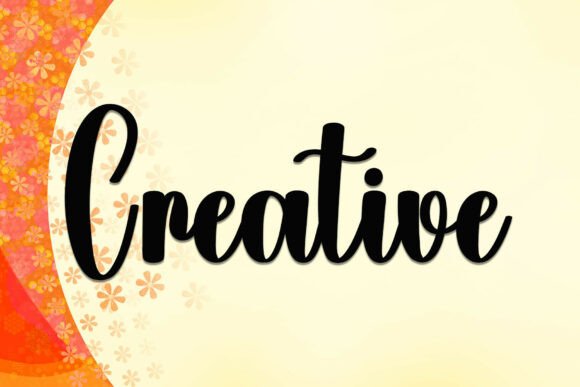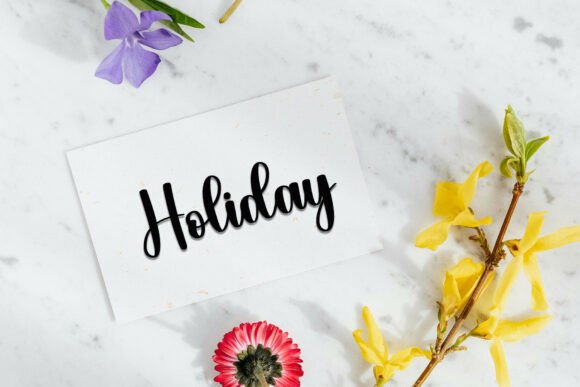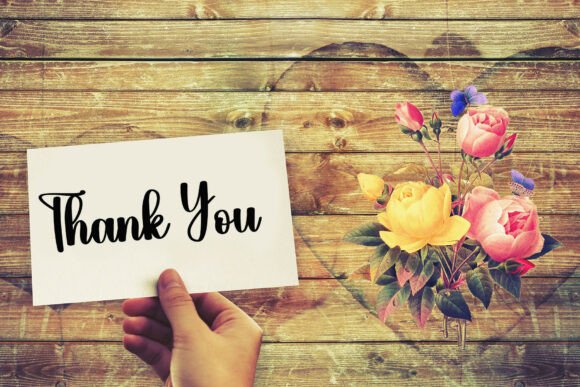
Introducing Christmas Saturday Font: The Perfect Addition to Your Festive Designs
As the holiday season approaches, designers and crafters are on the lookout for the perfect font to add a touch of elegance and whimsy to their Christmas projects. Look no further than Christmas Saturday Font, a modern calligraphy font that embodies the spirit of the season with its elegant, handwritten feel.
A Font that Exudes Festive Charm
Christmas Saturday Font is designed to bring a sense of warmth and coziness to your holiday designs. Its smooth curves and flowing strokes evoke a sense of nostalgia and festivity, making it perfect for a wide range of applications, from holiday cards and invitations to product packaging and social media posts.
Key Features of Christmas Saturday Font
- Elegant, handwritten feel: Christmas Saturday Font boasts a beautiful, cursive script that adds a personal touch to any design.
- Smooth curves and flowing strokes: The font’s fluid lines and curves create a sense of movement and elegance, perfect for capturing the magic of the holiday season.
- Balanced charm and style: Christmas Saturday Font strikes the perfect balance between casual charm and stylish script, making it ideal for creating warm and welcoming visuals.
Christmas Saturday Font is incredibly versatile, making it suitable for a wide range of design projects, including:
- Holiday cards and invitations: Add a touch of elegance and whimsy to your holiday greetings with this beautiful font.
- Product packaging: Give your holiday products a special touch with Christmas Saturday Font, perfect for labels, tags, and more.
- Social media posts: Make your holiday social media posts stand out with this eye-catching font, perfect for creating festive and engaging content.
- Winter-themed branding: Use Christmas Saturday Font to create a cohesive and festive brand identity for your business or project.
Why Choose Christmas Saturday Font?
With so many fonts to choose from, why select Christmas Saturday Font for your holiday designs? Here are just a few reasons:
- Unique and eye-catching: This font is sure to grab attention and add a touch of personality to your designs.
- Easy to read and use: Christmas Saturday Font is clear, legible, and easy to use, making it perfect for a wide range of design applications.
- High-quality and versatile: This font is designed to be versatile and adaptable, making it suitable for a wide range of design projects.
Tips for Using Christmas Saturday Font
To get the most out of Christmas Saturday Font, here are a few tips:
- Pair with complementary fonts: Combine Christmas Saturday Font with other fonts to create a unique and visually appealing design.
- Experiment with colors and textures: Add depth and interest to your design with festive colors and textures.
- Keep it simple and elegant: Don’t be afraid to let the font speak for itself – sometimes, less is more.
Christmas Saturday Font is the perfect addition to your festive design toolkit. With its elegant, handwritten feel and smooth curves and flowing strokes, this font is sure to add a touch of warmth and coziness to your holiday projects. Whether you’re designing holiday cards, product packaging, or social media posts, Christmas Saturday Font is the ideal choice for creating warm and welcoming visuals.